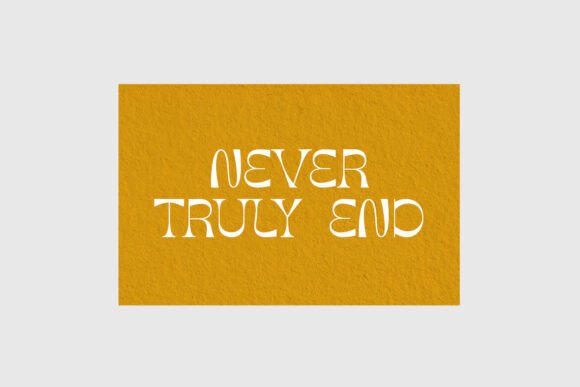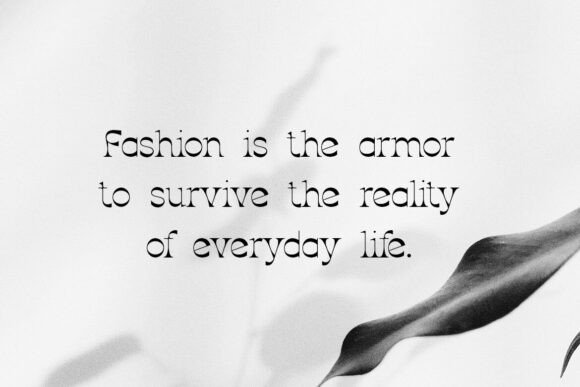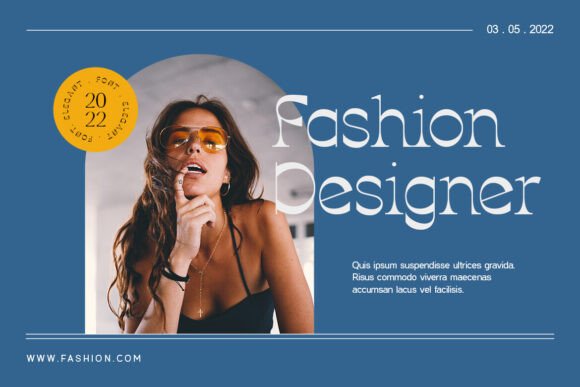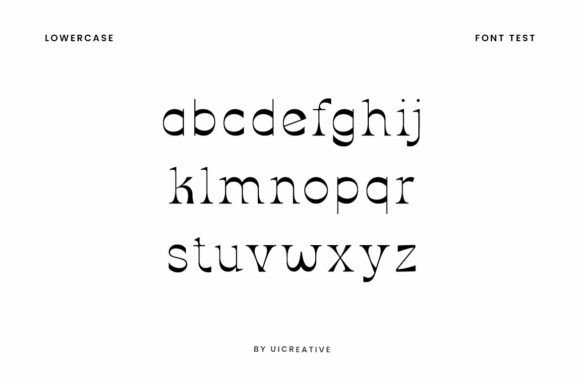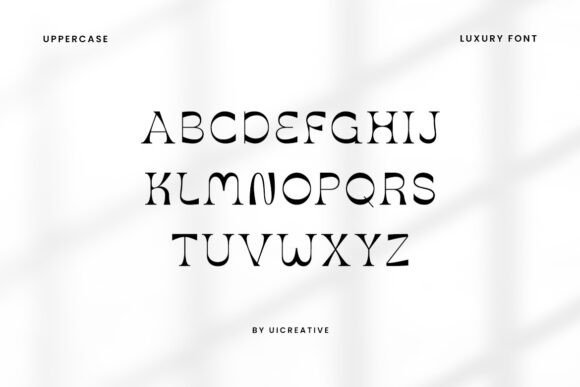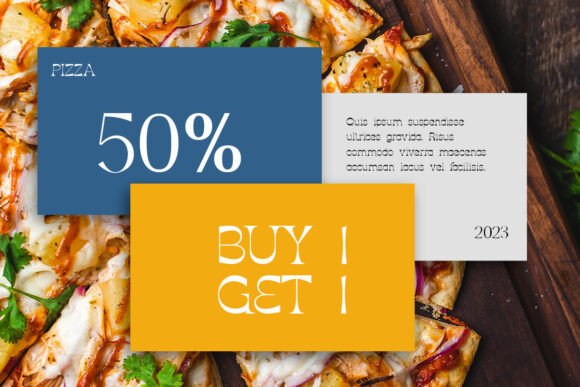
Breadstick Font: A Retro Serif Typeface for Creative Projects
In the world of typography, fonts play a crucial role in conveying the tone and personality of a brand or design. One font that has gained popularity among designers and crafters is the Breadstick font, a retro serif typeface that exudes a sense of nostalgia and sophistication. In this article, we’ll explore the features and uses of the Breadstick font, and why it’s an excellent choice for a wide range of creative projects.
What is Breadstick Font?
Breadstick is a retro serif typeface that boasts a unique blend of classic and modern elements. Its distinctive design makes it an excellent choice for designers looking to add a touch of elegance and whimsy to their projects. The font’s serif features add a sense of tradition and sophistication, while its retro vibe gives it a playful and modern twist.
Key Features of Breadstick Font
The Breadstick font has several key features that make it an attractive choice for designers:
- Retro aesthetic: The font’s retro design gives it a distinctive look that’s perfect for projects that require a vintage or nostalgic feel.
- Serif features: The serif elements add a sense of sophistication and elegance to the font, making it suitable for high-end branding and editorial design.
- Masculine and feminine qualities: The Breadstick font displays both masculine and feminine qualities, making it an excellent choice for fashion-related branding or editorial design.
- Versatility: The font is suitable for a wide range of projects, from signature and stationery to logo design, wedding typography, magazine and book covers, website headers, and more.
Uses of Breadstick Font
The Breadstick font is an incredibly versatile typeface that can be used in a variety of creative projects, including:
- Signature and stationery: Add a touch of elegance to your business cards, letterheads, and envelopes with the Breadstick font.
- Logo design: The font’s unique design makes it an excellent choice for logo design, particularly for brands that want to convey a sense of sophistication and whimsy.
- Wedding typography: The Breadstick font is perfect for wedding-related designs, such as invitations, menus, and ceremony programs.
- Magazine and book covers: The font’s retro aesthetic and serif features make it an excellent choice for magazine and book covers that require a touch of nostalgia and sophistication.
- Website headers: Use the Breadstick font to add a touch of personality to your website headers and make your website stand out.
- Fashion-related branding: The font’s masculine and feminine qualities make it an excellent choice for fashion-related branding, particularly for brands that want to convey a sense of elegance and sophistication.
Why Choose Breadstick Font?
There are several reasons why designers and crafters should consider using the Breadstick font in their projects:
- Unique design: The Breadstick font has a distinctive design that sets it apart from other typefaces.
- Versatility: The font is suitable for a wide range of projects, from print to digital.
- Elegance and sophistication: The font’s serif features and retro aesthetic give it a sense of elegance and sophistication that’s perfect for high-end branding and editorial design.
- Easy to read: Despite its decorative features, the Breadstick font is easy to read, making it suitable for body text and headlines.
In conclusion, the Breadstick font is a versatile and elegant typeface that’s perfect for designers and crafters looking to add a touch of sophistication and whimsy to their projects. Its unique design, serif features, and retro aesthetic make it an excellent choice for a wide range of creative projects, from signature and stationery to logo design, wedding typography, and more. Whether you’re working on a fashion-related branding project or an editorial design piece, the Breadstick font is definitely worth considering.